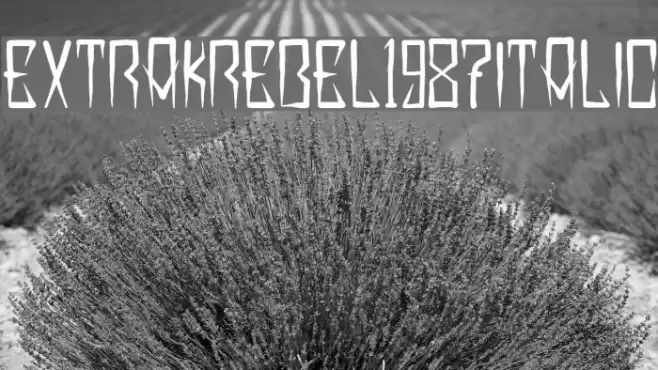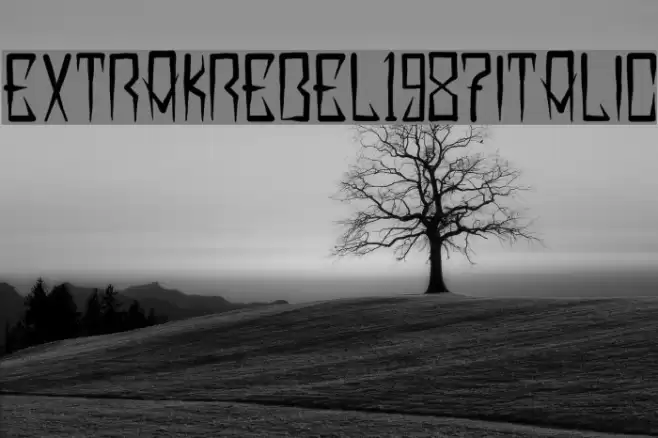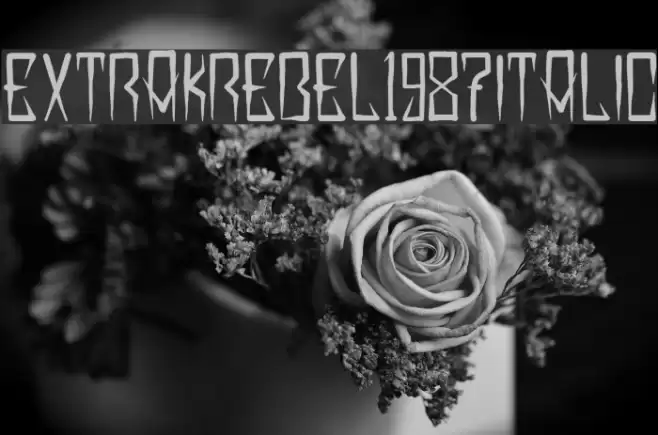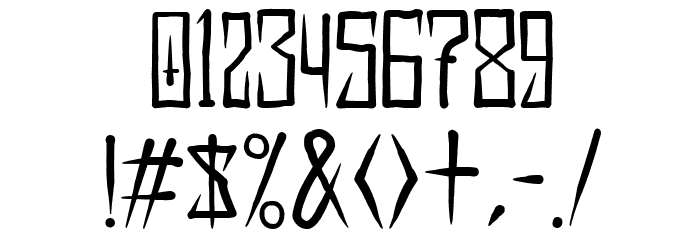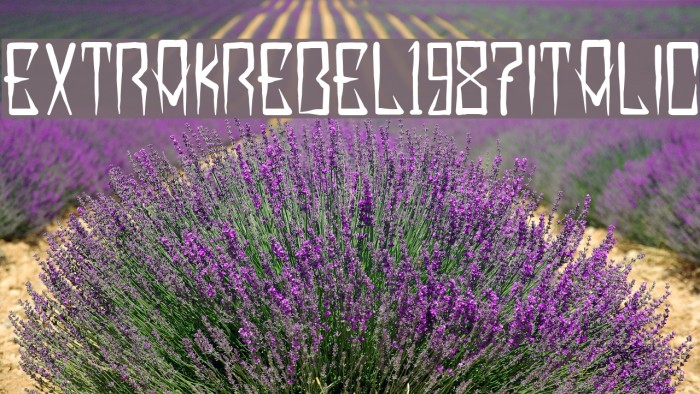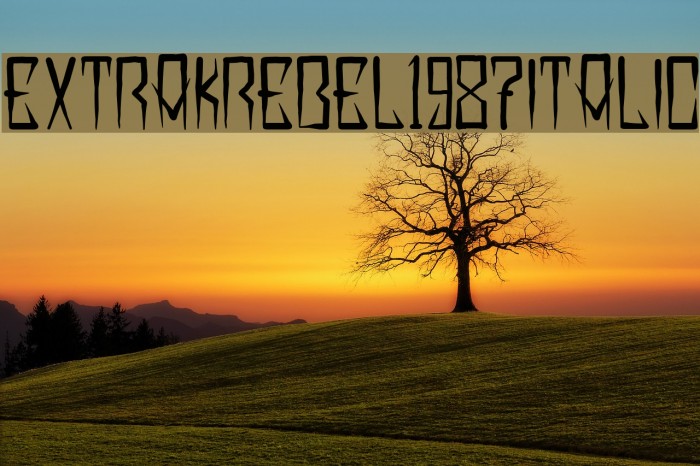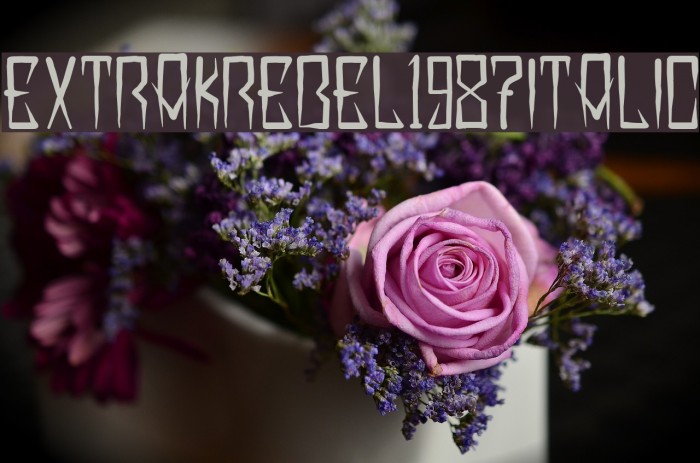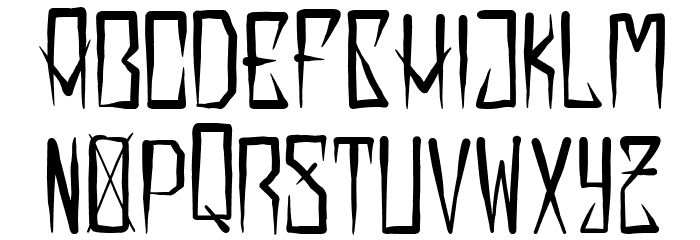
EXTRAKREBEL1987 Italic Font
EXTRAKREBEL1987 Italic Description
This font features a bold, edgy design with sharp, angular lines and a rebellious aesthetic. The characters are uniquely crafted with a sense of movement and energy, giving them a dynamic and aggressive appearance. The uppercase and lowercase letters maintain a consistent style, with elongated strokes and pointed edges that create a sense of urgency and intensity. The numbers and special characters follow the same design principles, ensuring a cohesive look across all elements. This font is perfect for projects that require a bold statement and a touch of defiance.
A bold, edgy font with sharp, angular lines and a rebellious aesthetic from Uncategorized fonts.
- Proposed Projects: Ideal for music album covers, streetwear branding, event posters, and edgy graphic designs.
- Overall Style: Modern, Edgy